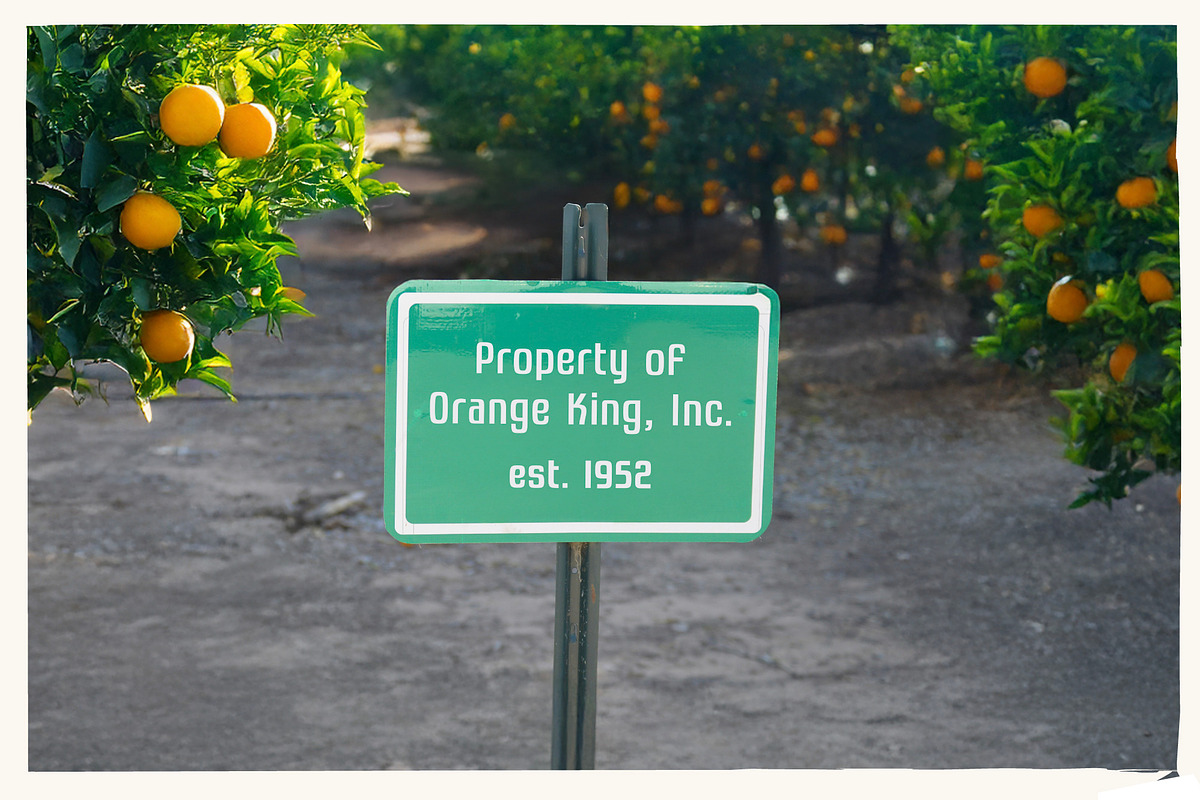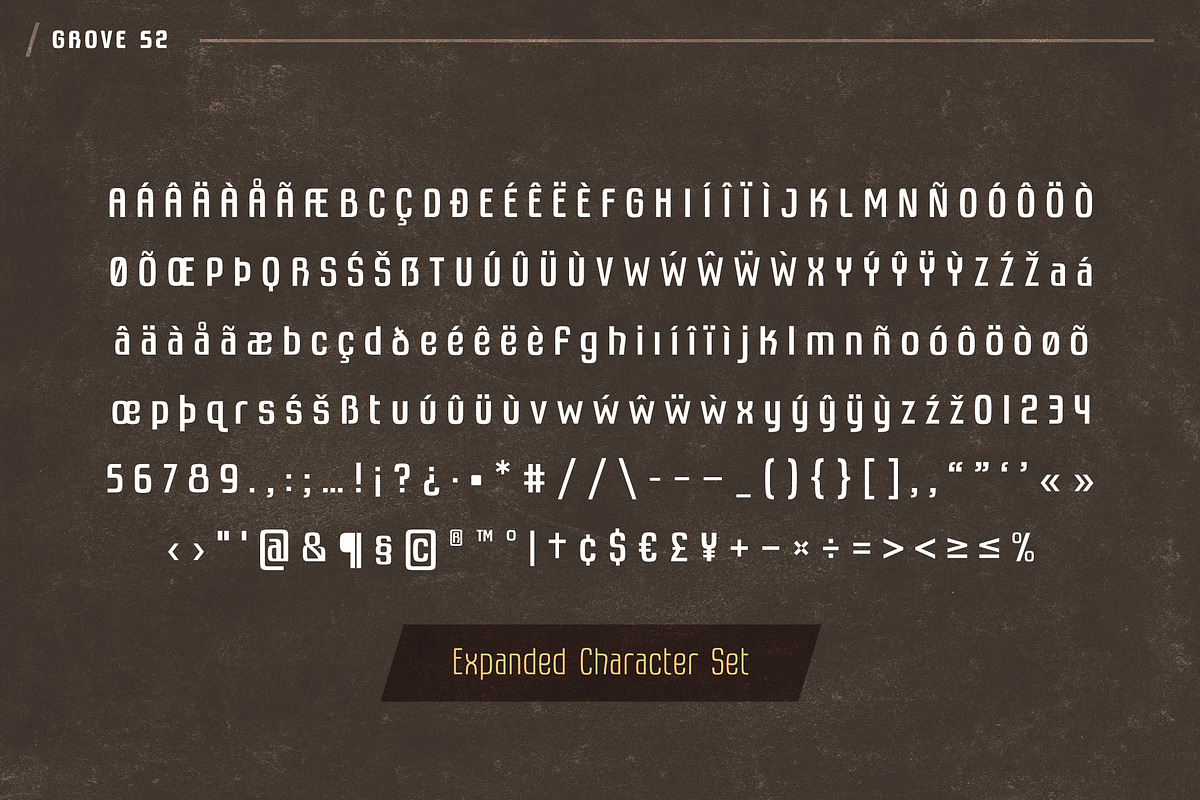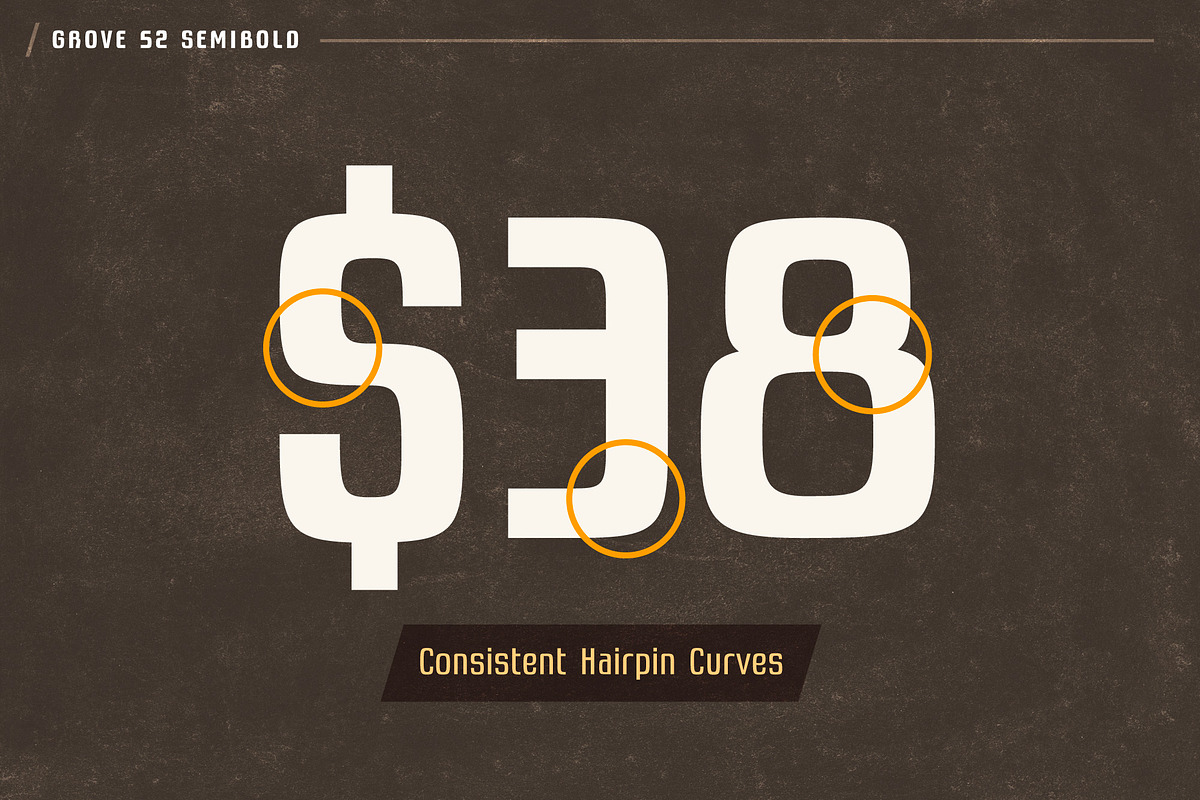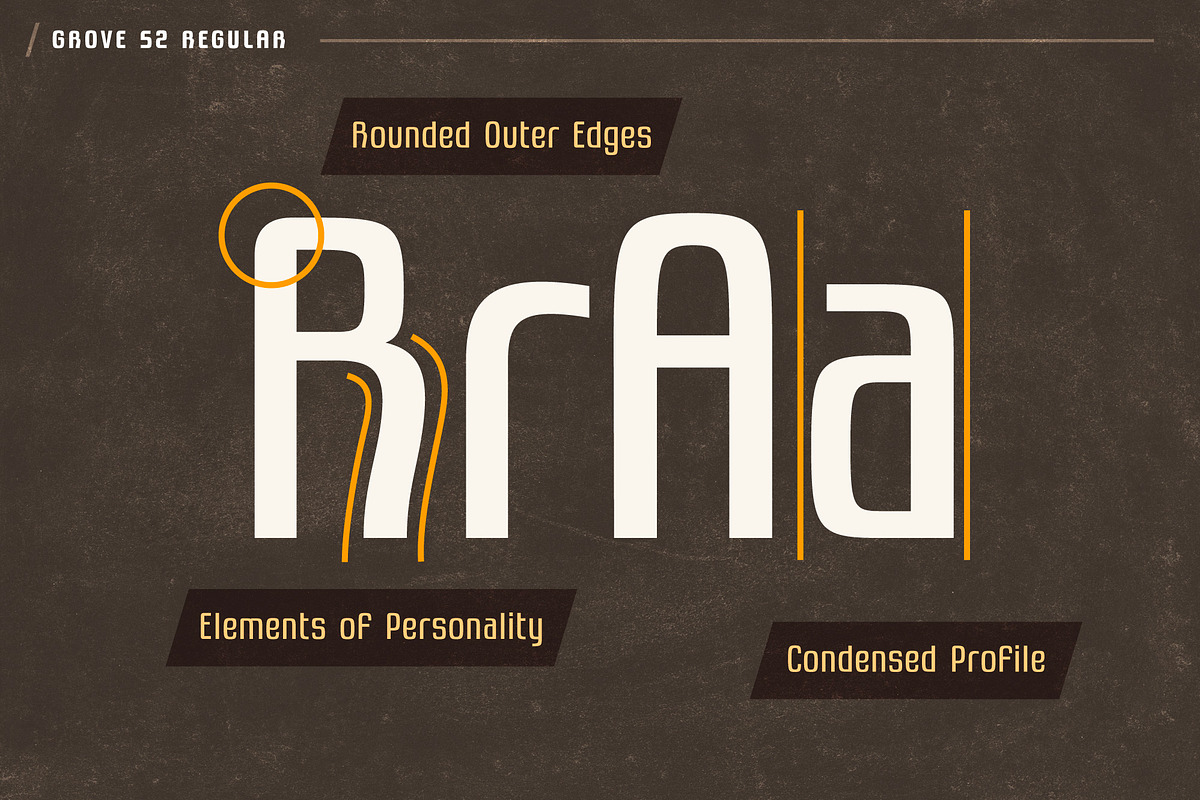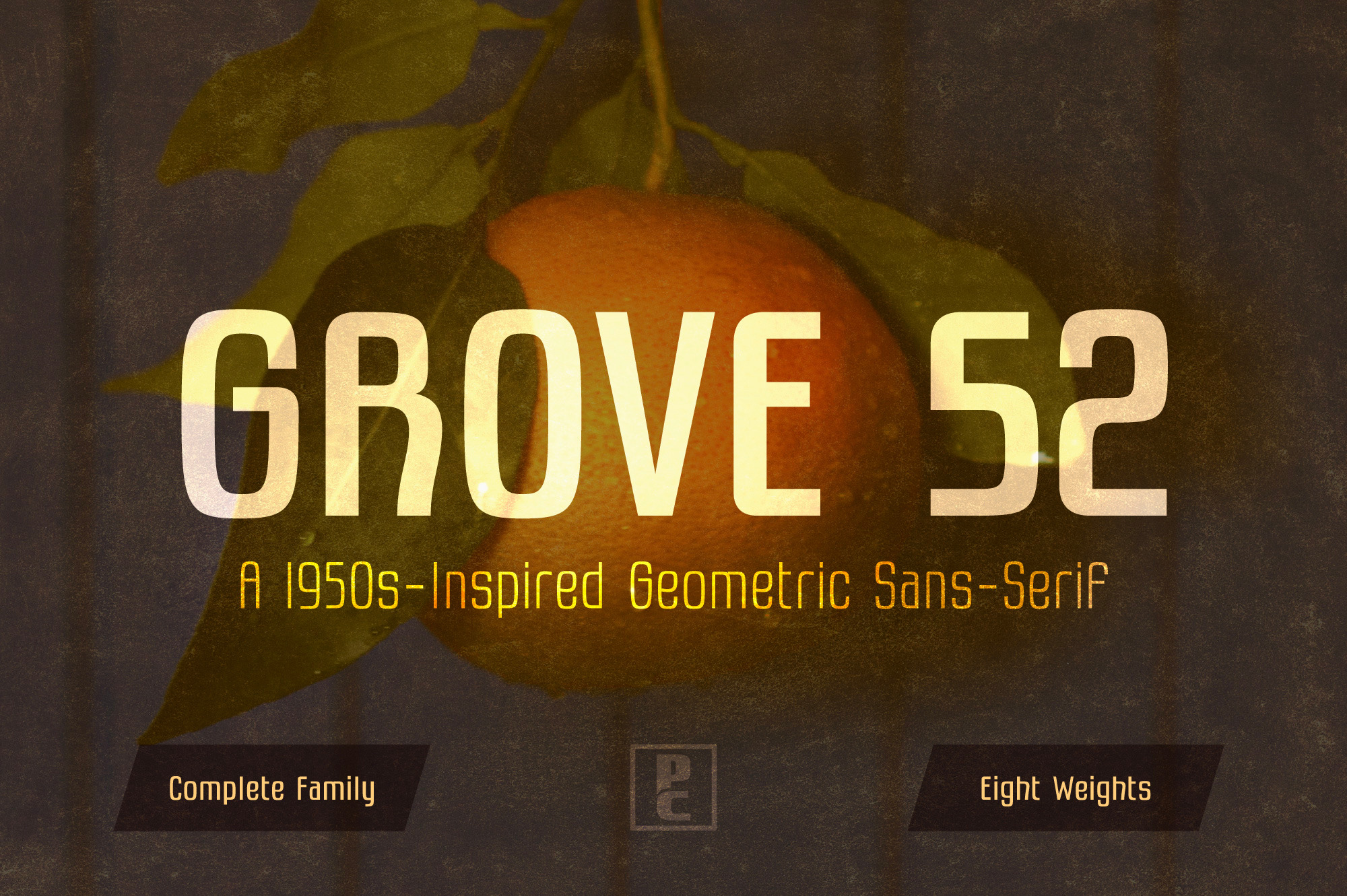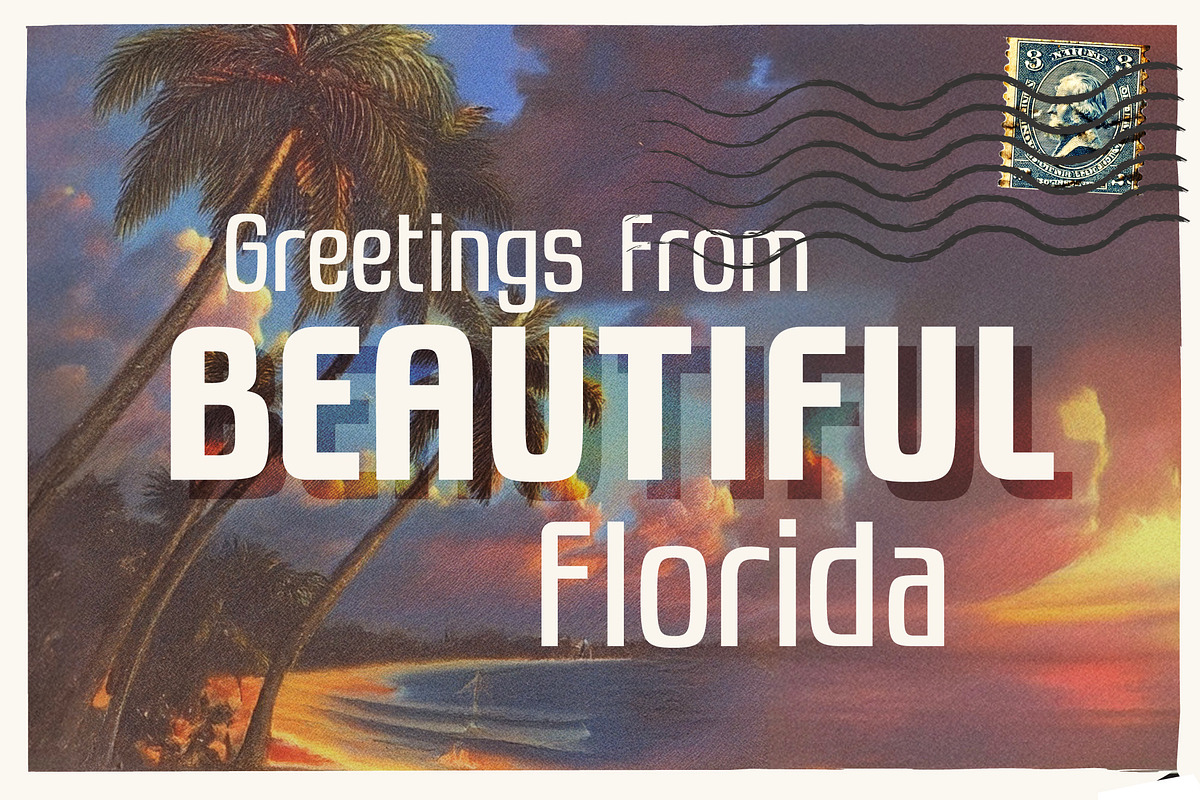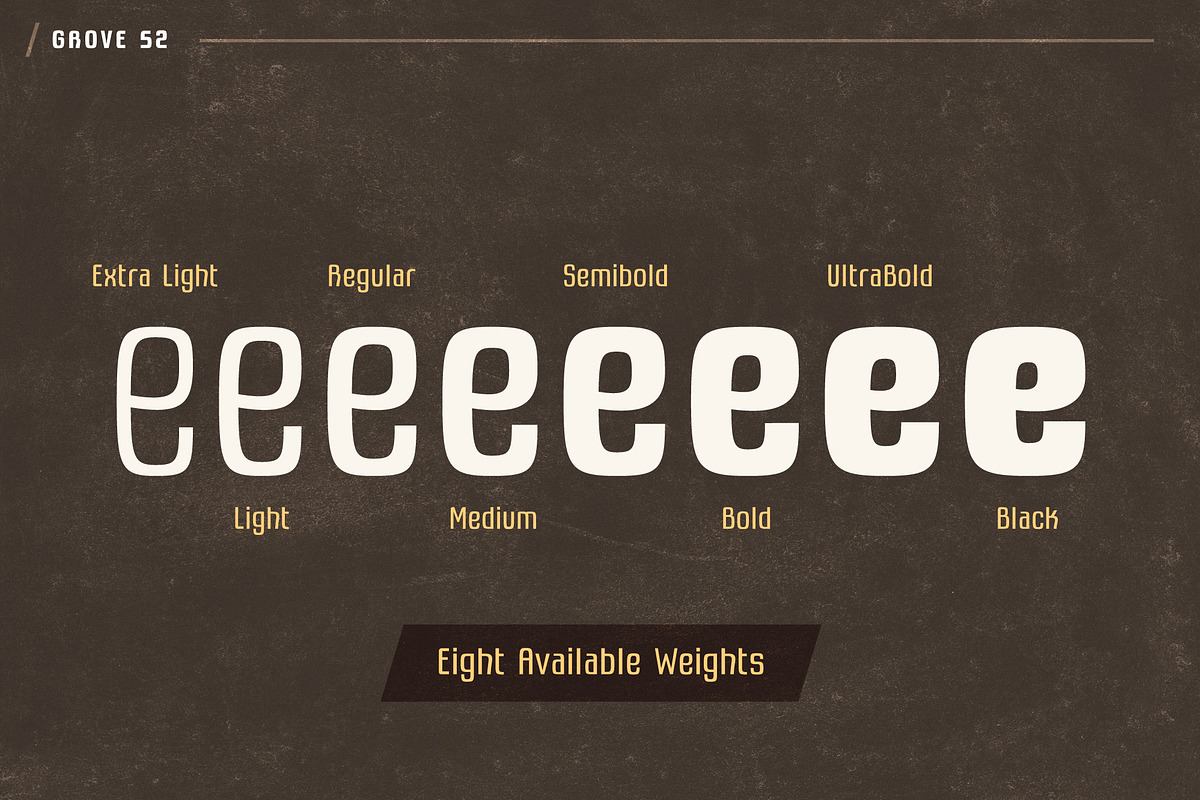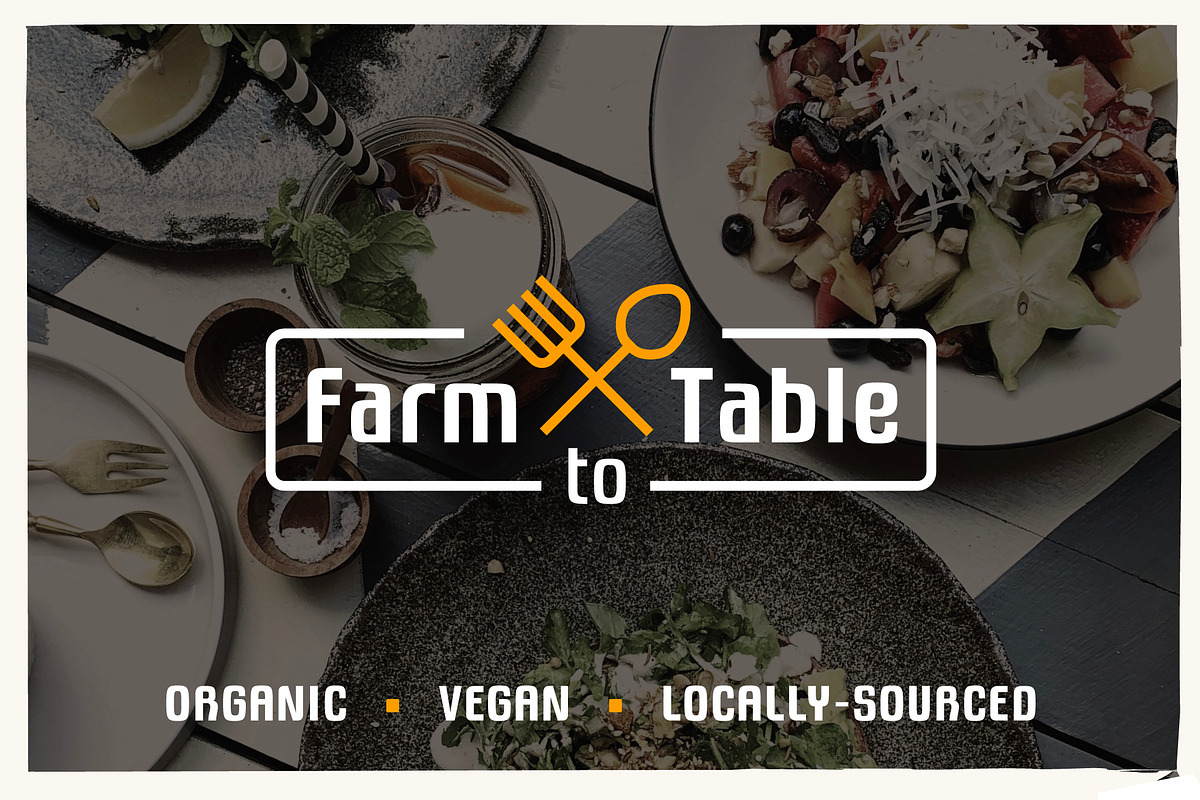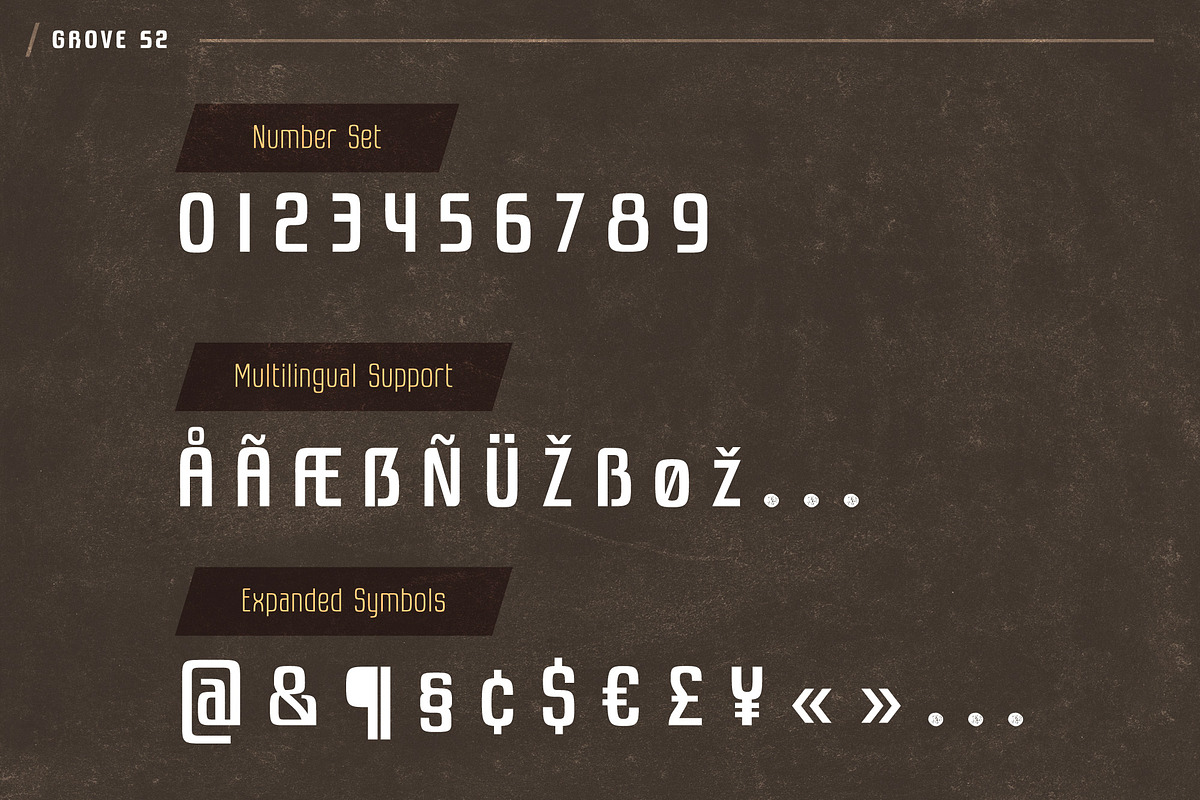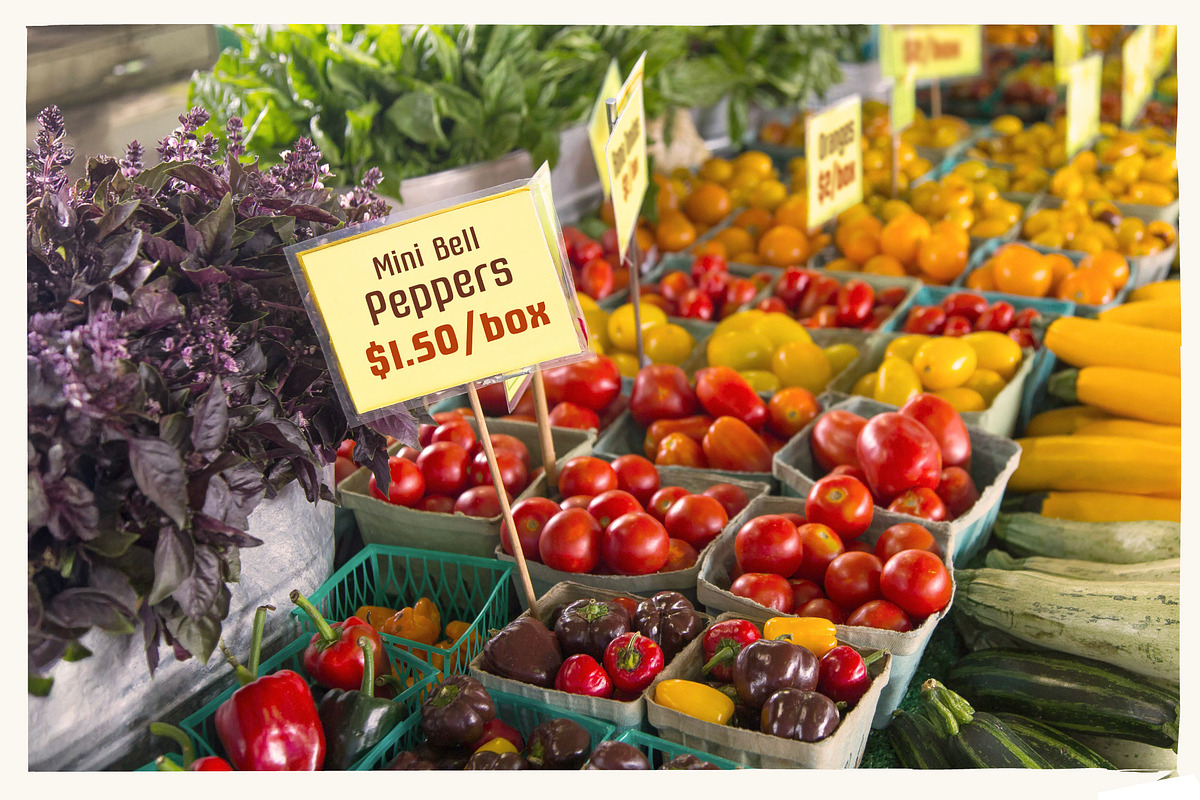
Grove 52 - Retro Agriculture Font
Introducing Grove 52, a retro geometric sans-serif inspired by the iconic signage of Florida’s citrus farms in the 1950s.
Grove 52 draws from the straightforward, utilitarian style of Florida’s classic citrus industry signage, featuring signature details like tight hairpin curves and tall condensed letterforms. While honoring the classic look, Grove 52 brings modern elements through subtle, distinctive character details like rounded corners and flourishes that add charm and personality. Careful kerning and an expanded multilingual character set also ensures versatility for modern day applications.
Grove 52’s clean geometry and lively personality make it a perfect choice for designs that seek a warm, approachable feel without leaning too casual. Available in a full range of 8 weights, Grove 52 also offers exceptional readability, making it well-suited for everything from bold headlines to engaging body text, to logo design and so much more.